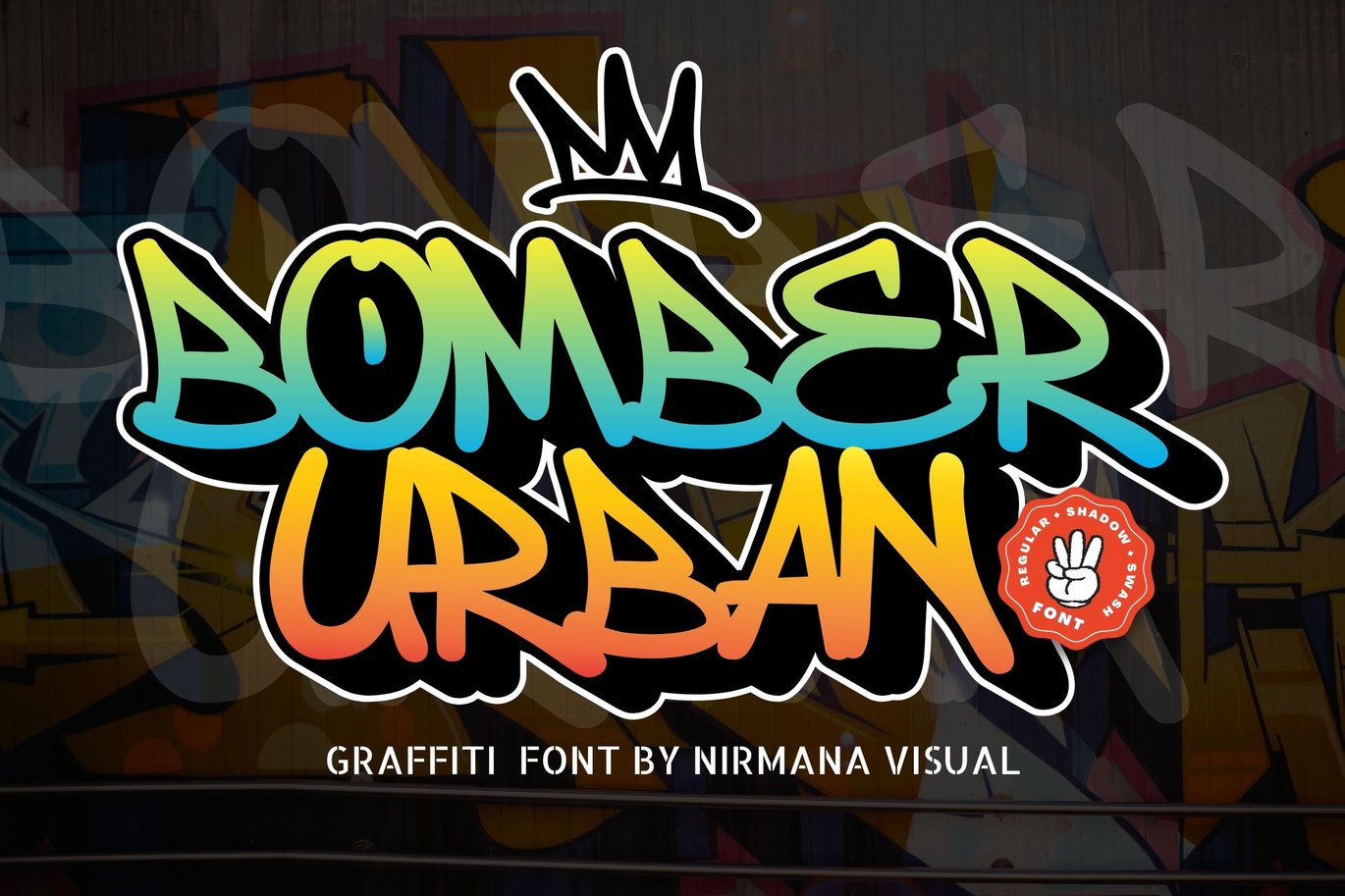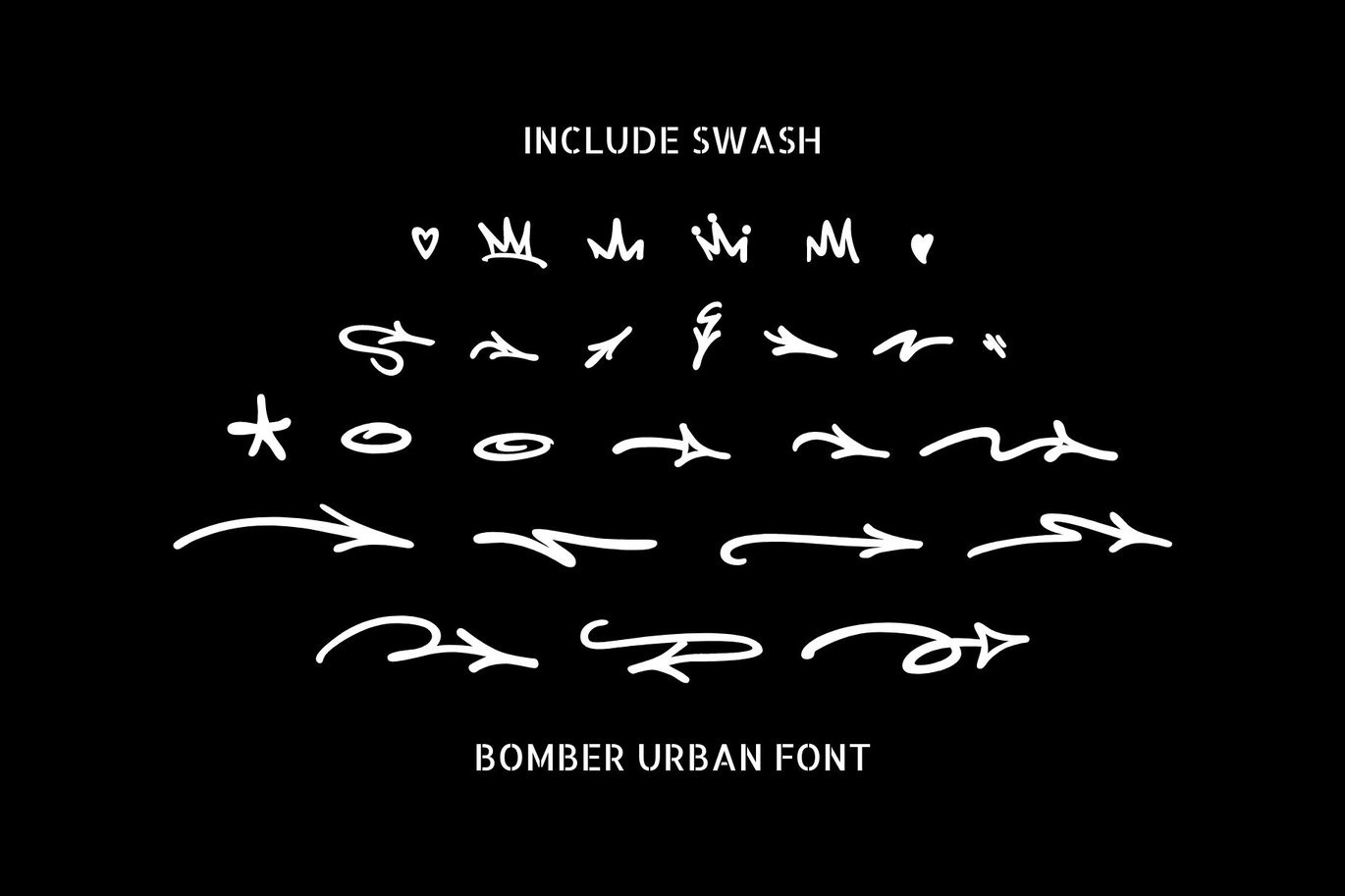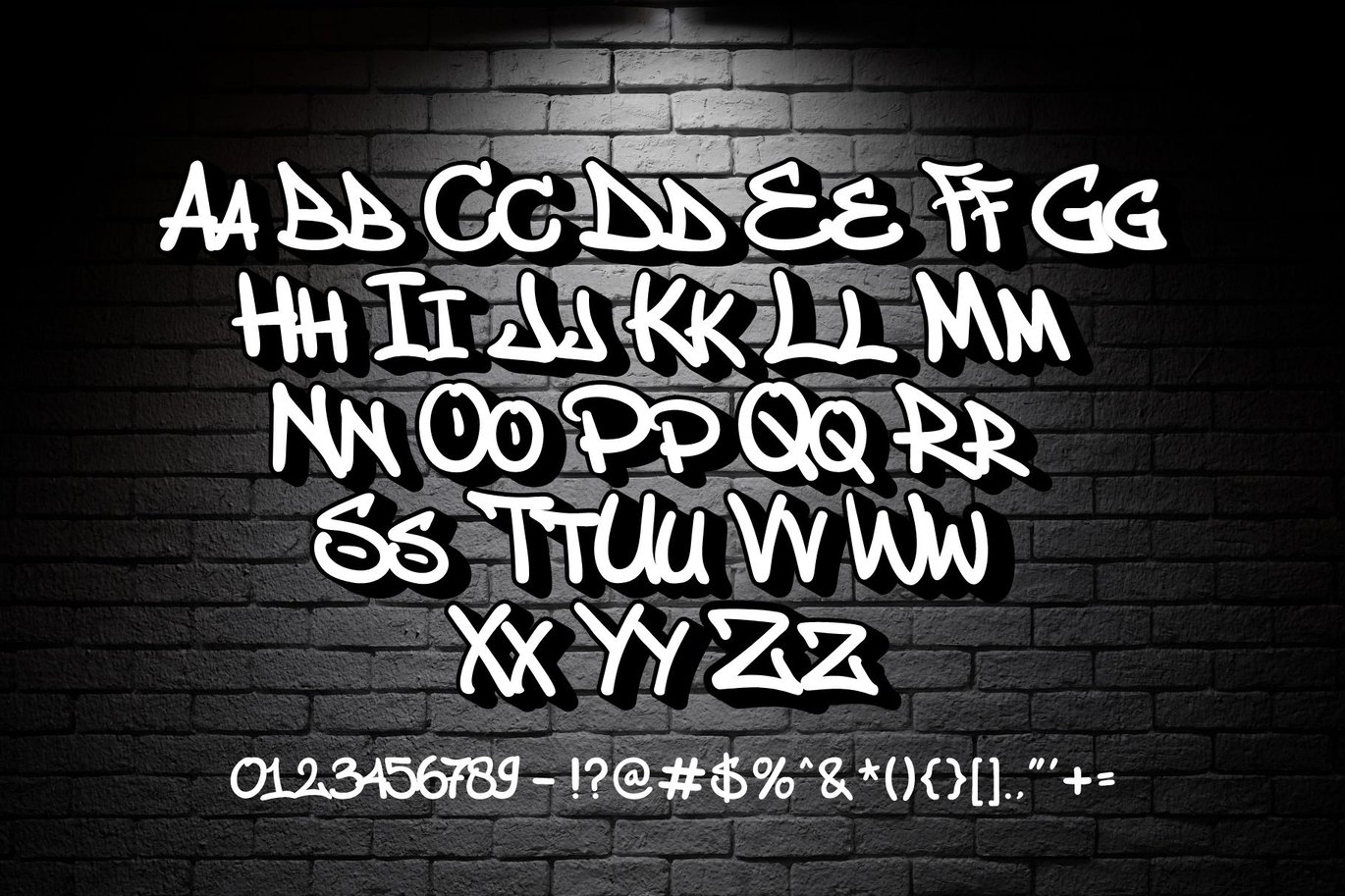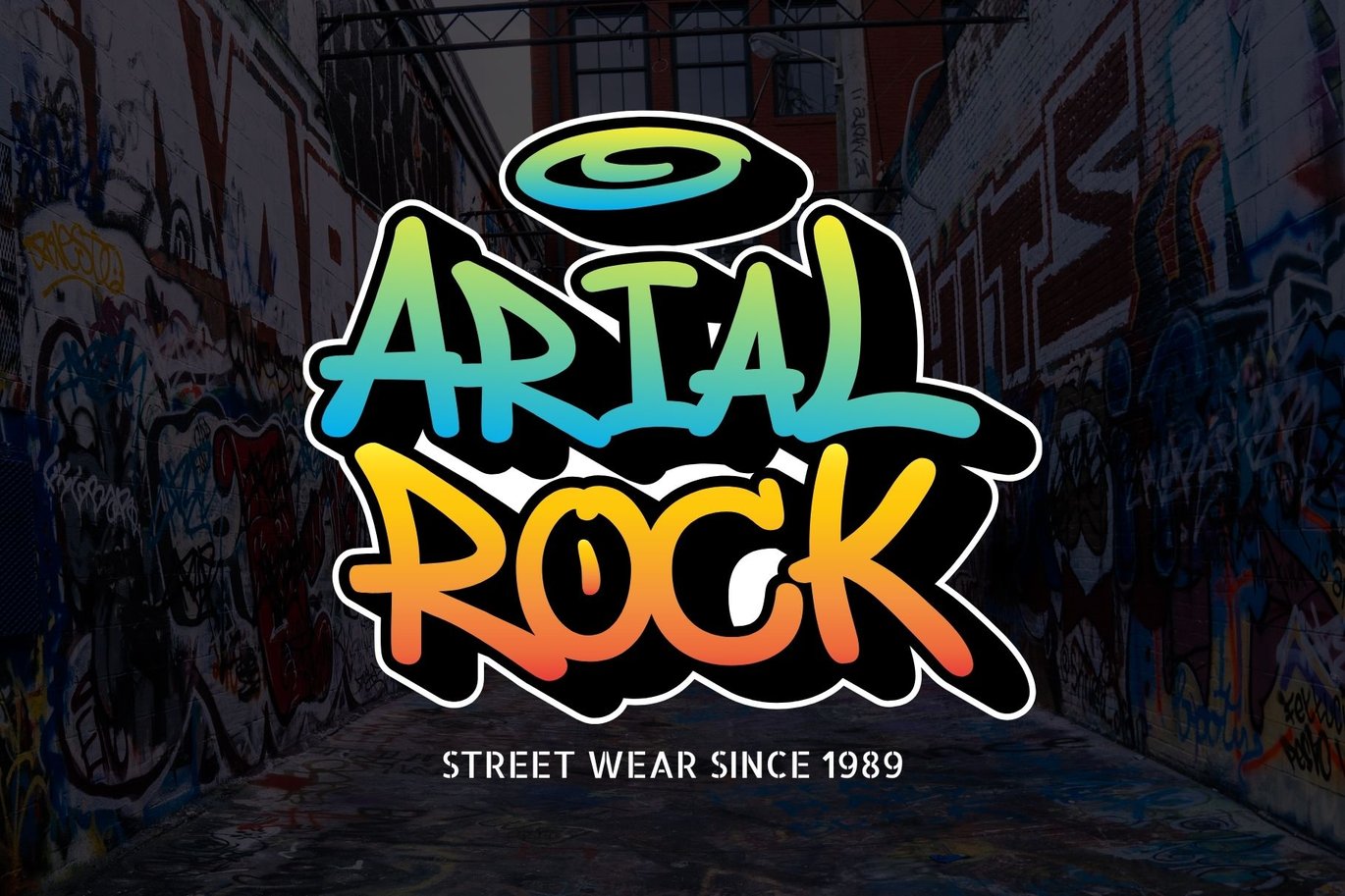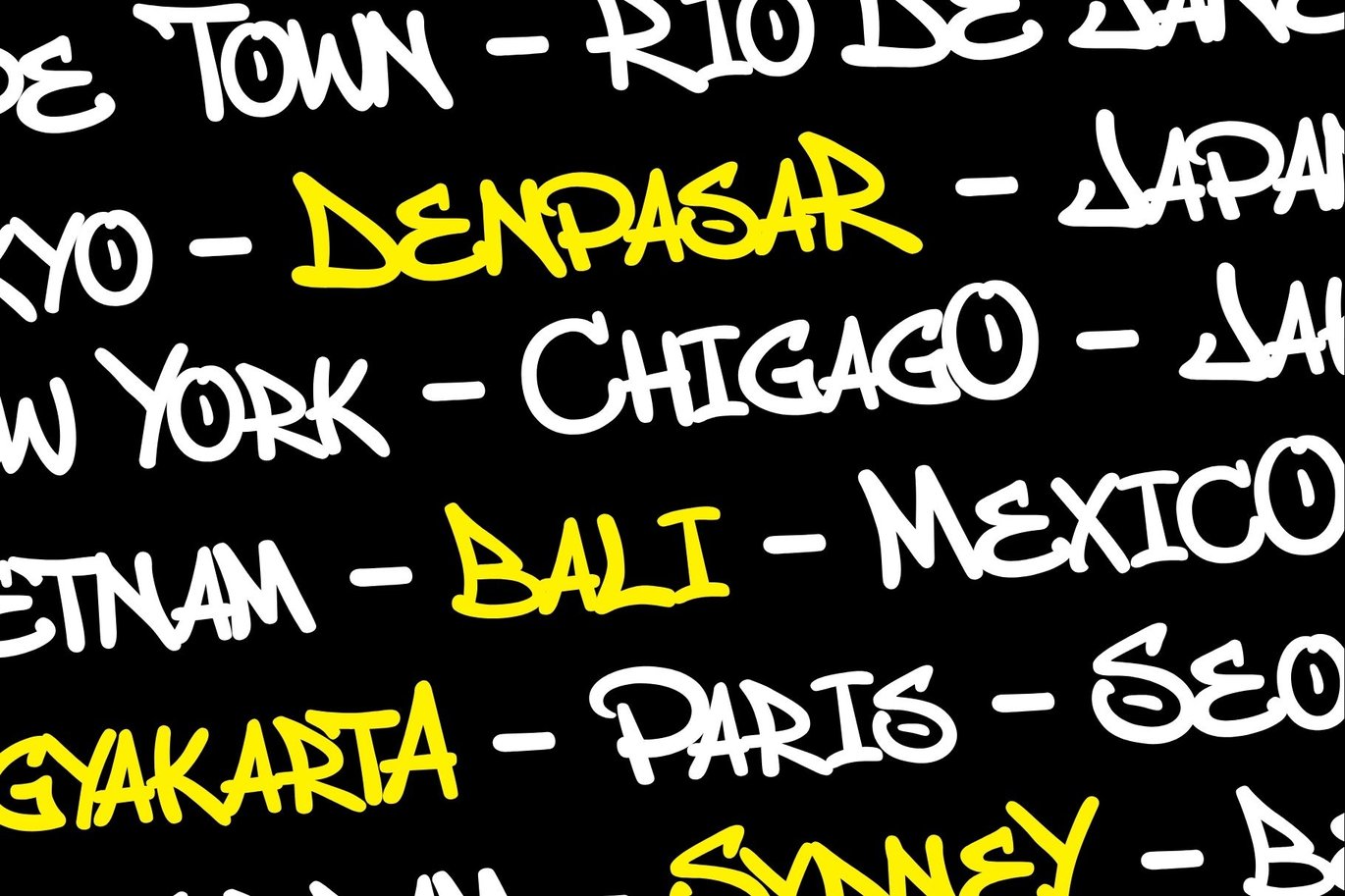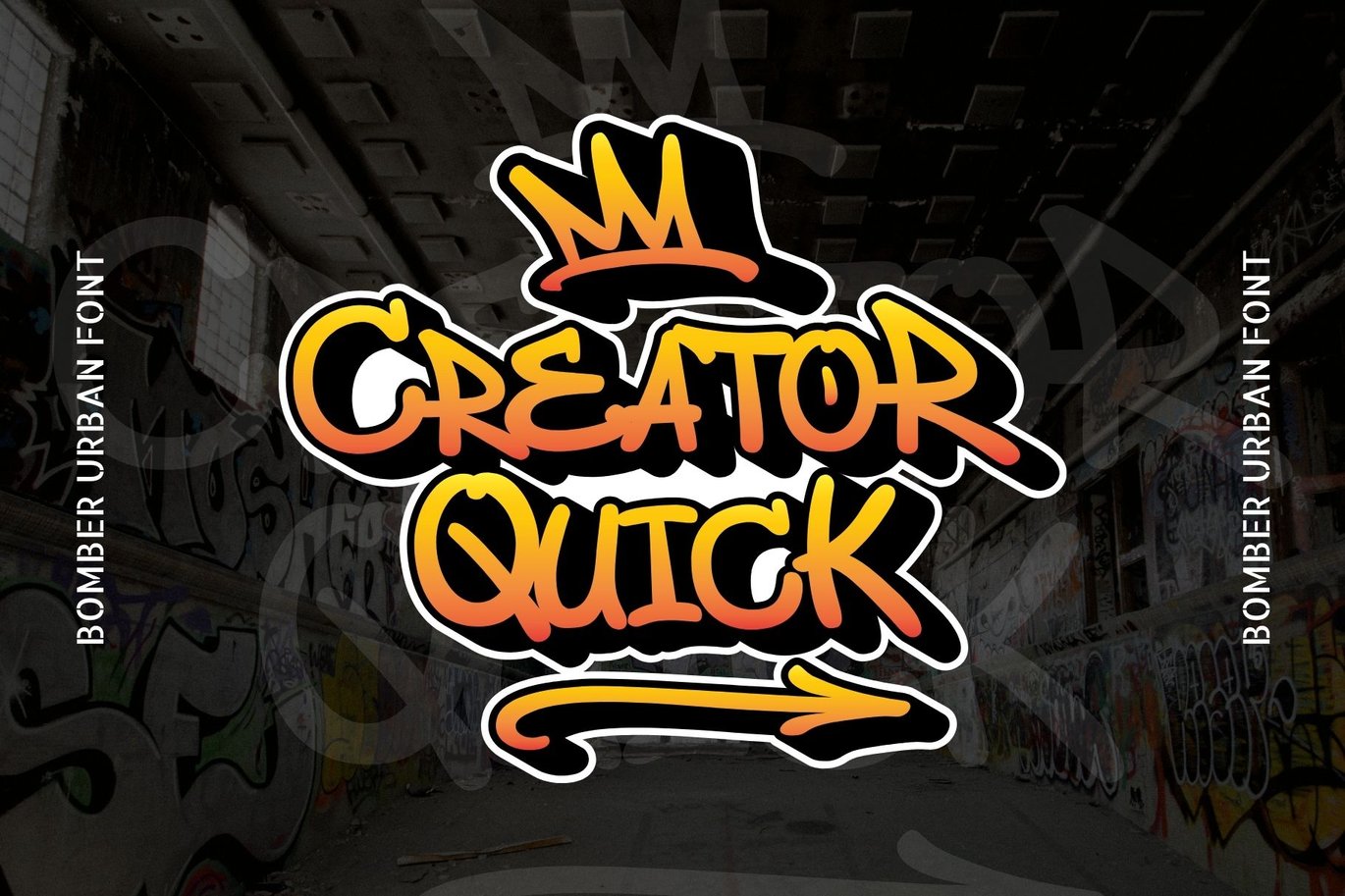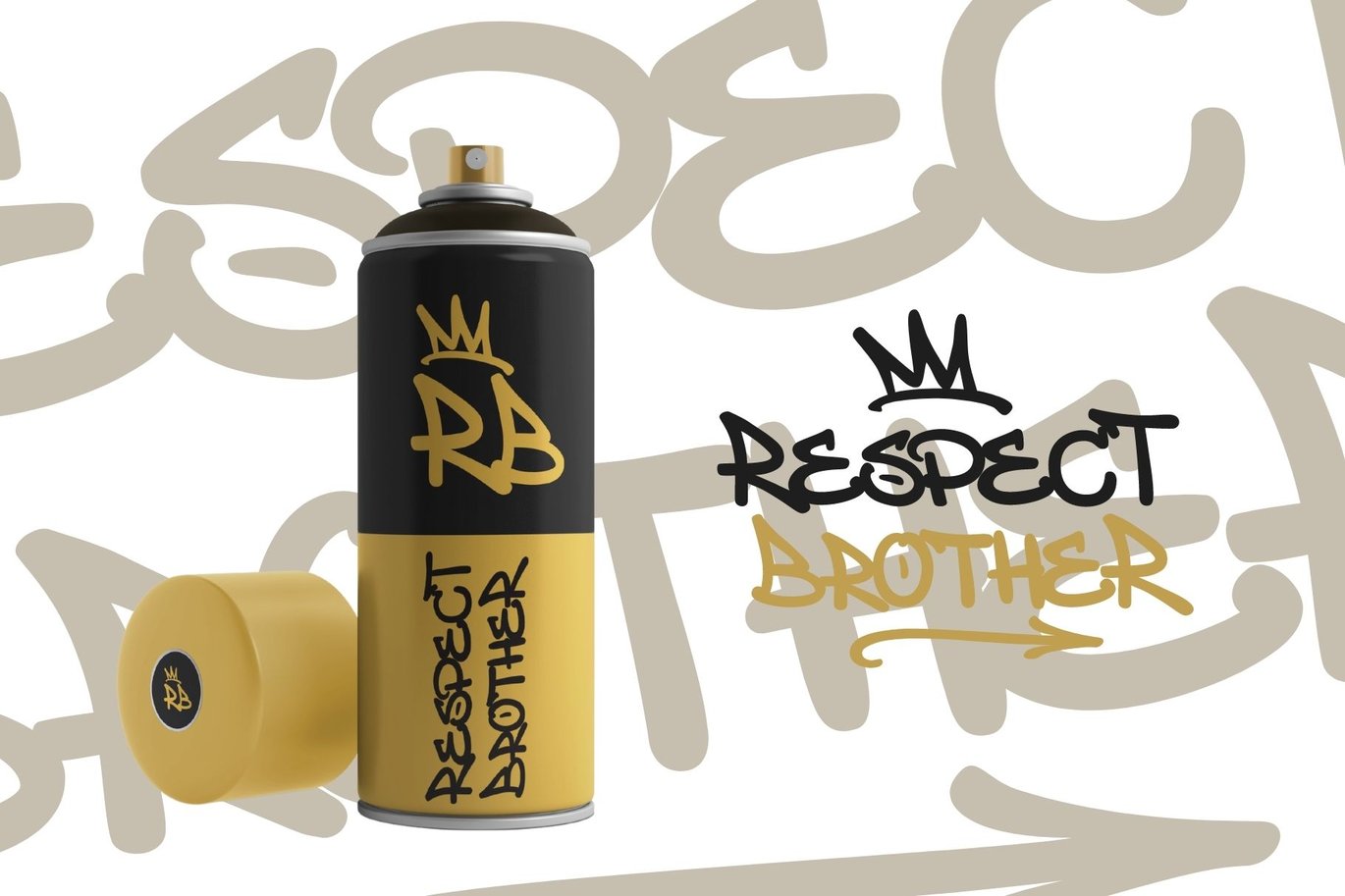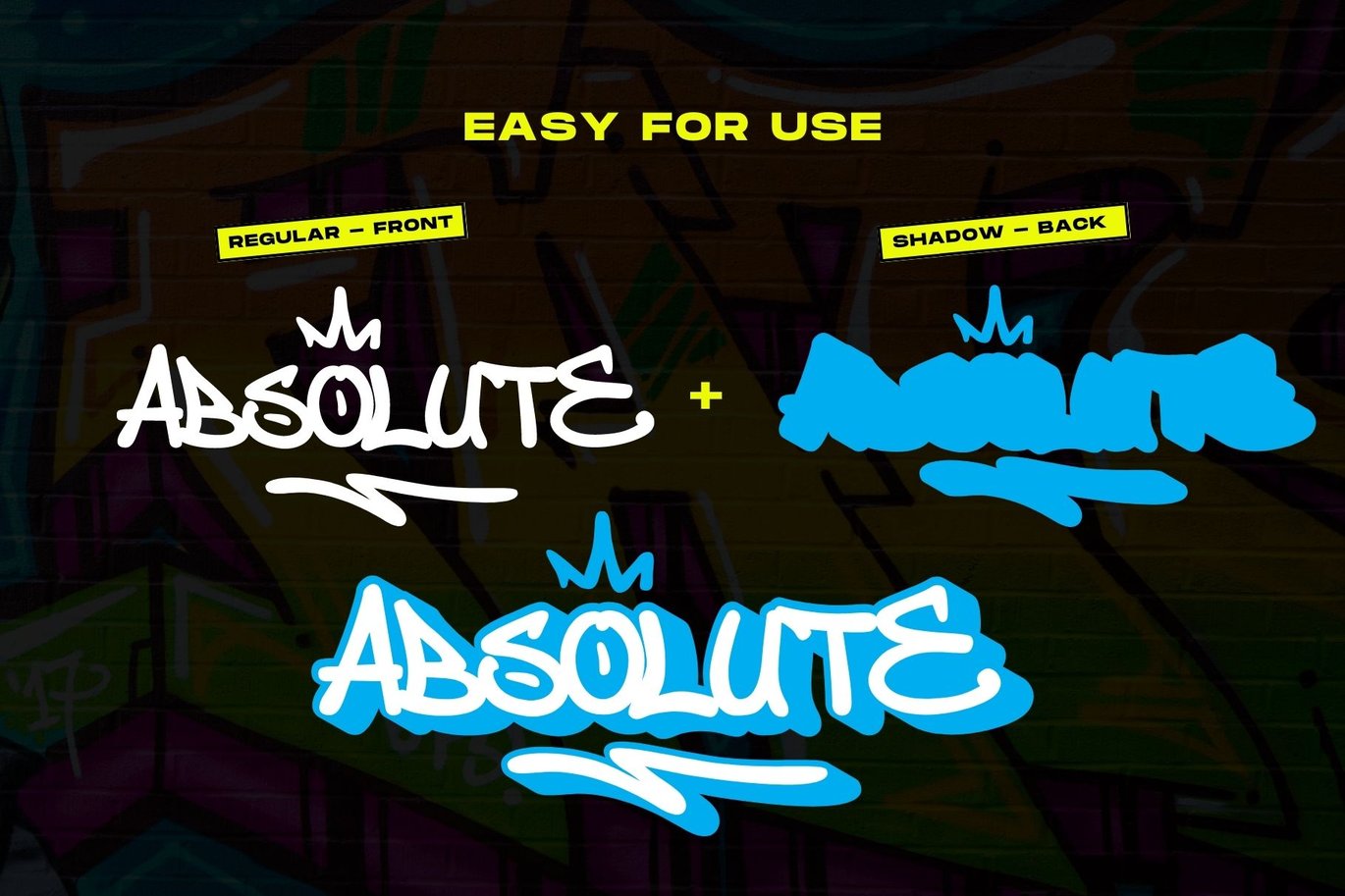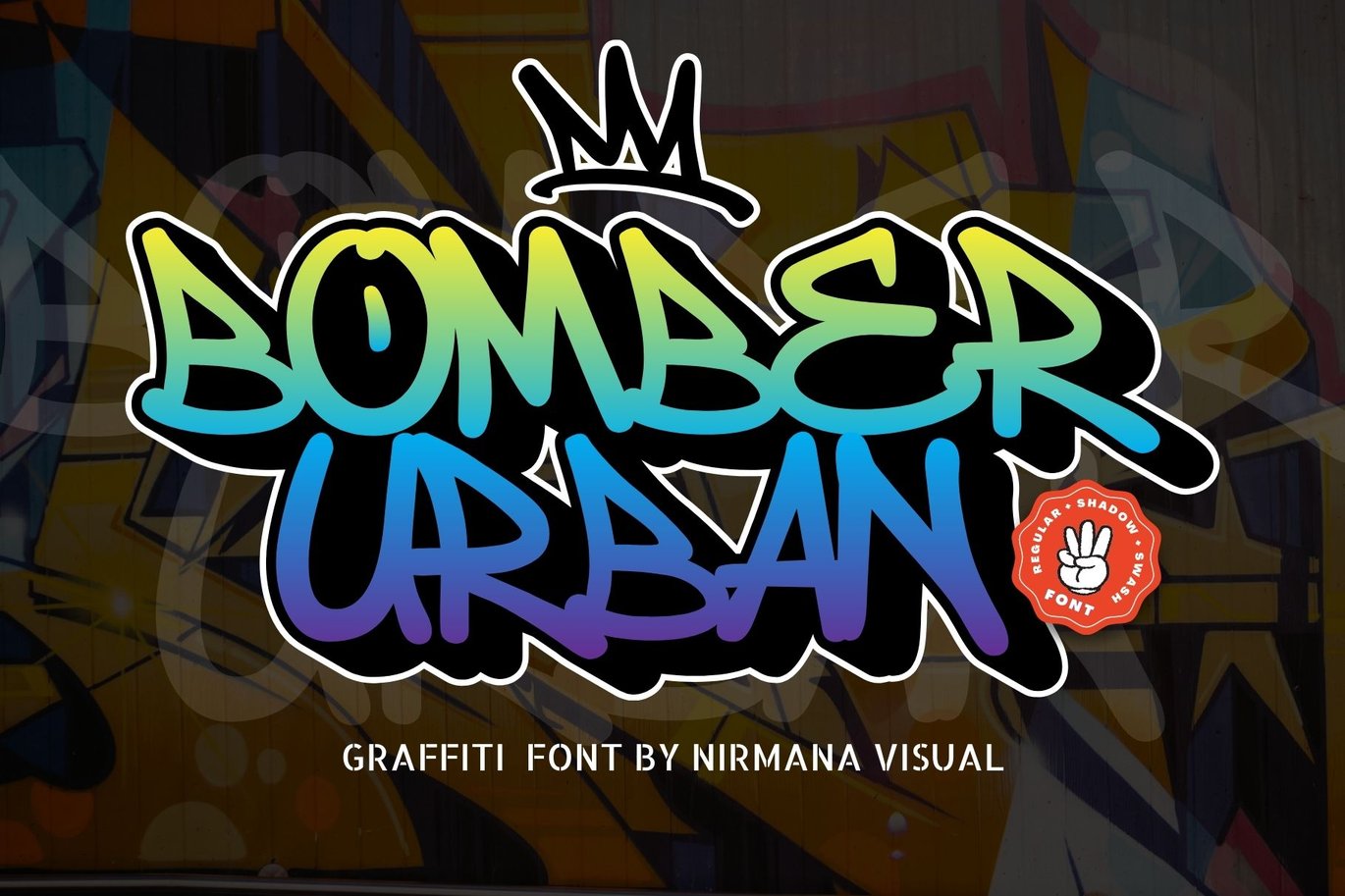
Bomber Urban – Graffiti Font
Introducing Bomber Urban
Inspired by Graffiti style Design,
with 2 Style : Regular, Shadow & Swash
Graffiti Xenoa offers beautiful typographic harmony for a diversity of design projects, including logos & branding, social media posts, advertisements & product designs.